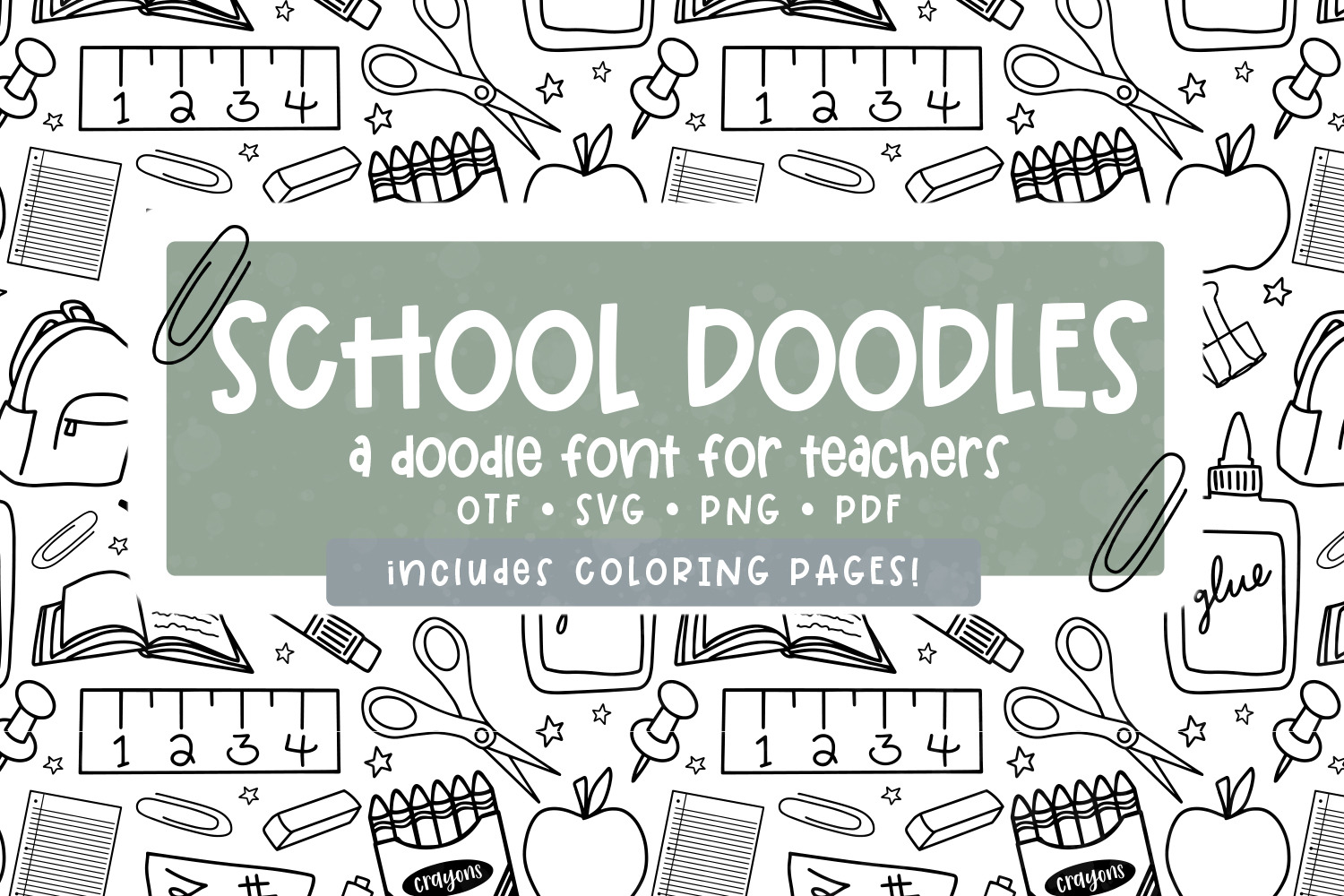
School Doodles Font | Hand Drawn
You NEED these super cute hand drawn school themed doodles! Perfect for the back to school kids and teachers. You'll get a font with these doodles (a-z) as well as a SVG PNG PDF file for each doodle. You will also be getting 5 cute patterned coloring pages ready to print!
You can use these doodles to add to worksheets, add them to your own quote for a shirt or little wood sign for a teacher's desk, classroom decor, classroom newsletters, mugs, and more!